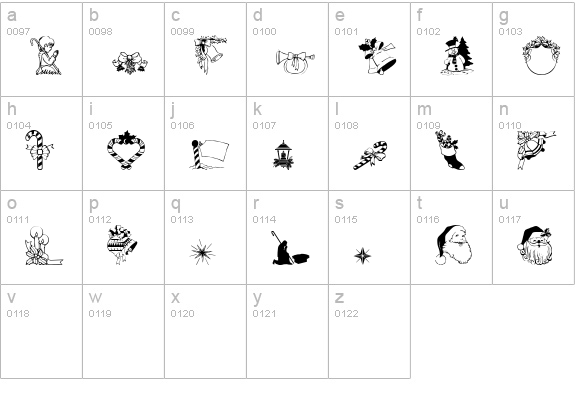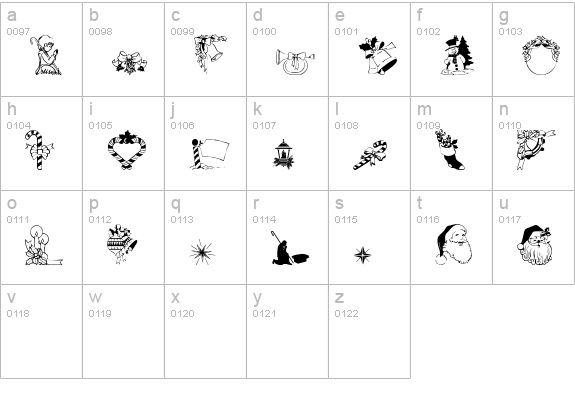
Introducing Christmas3 font, a whimsical and festive typeface perfect for all your holiday design needs. This charming font features unique and playful characters that capture the spirit of Christmas. With its cheerful curves and decorative elements, Christmas3 font adds a touch of joy to any project. Best of all, Christmas3 font is available for free download at FontsMarket.com. Whether you're creating greeting cards, invitations, posters, or any other holiday-themed design, this font will bring a touch of holiday magic to your work. Spread the Christmas cheer with Christmas3 font today!